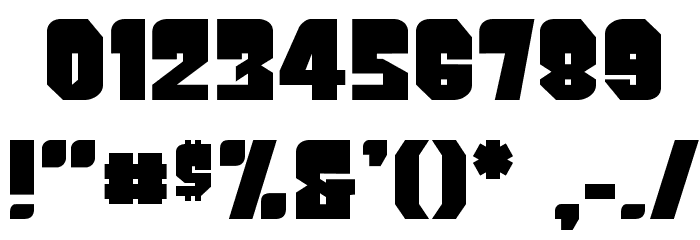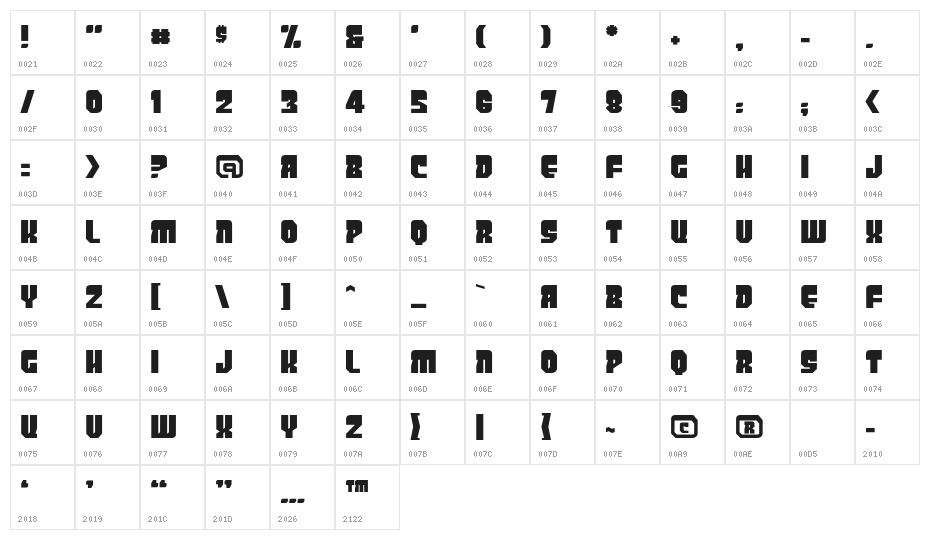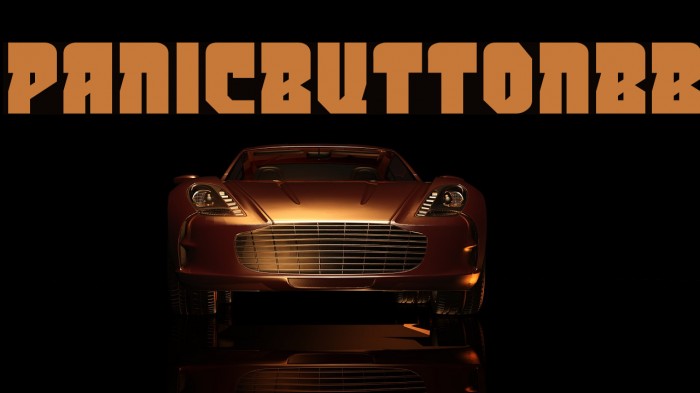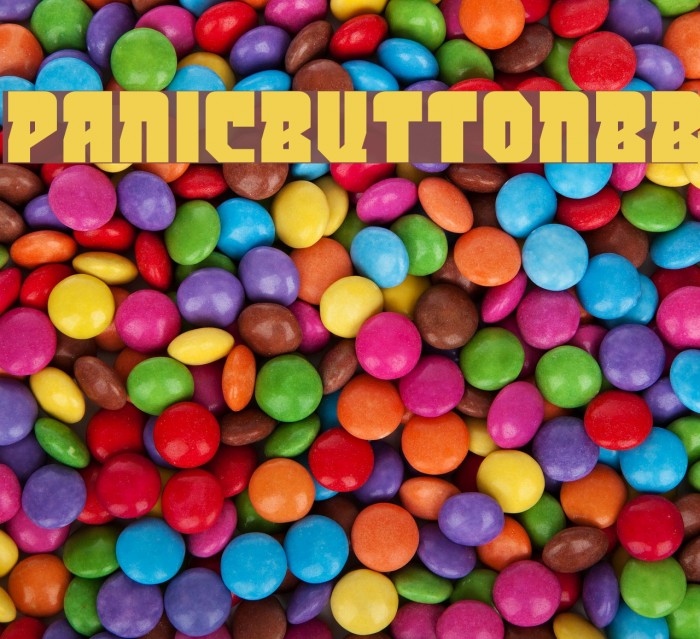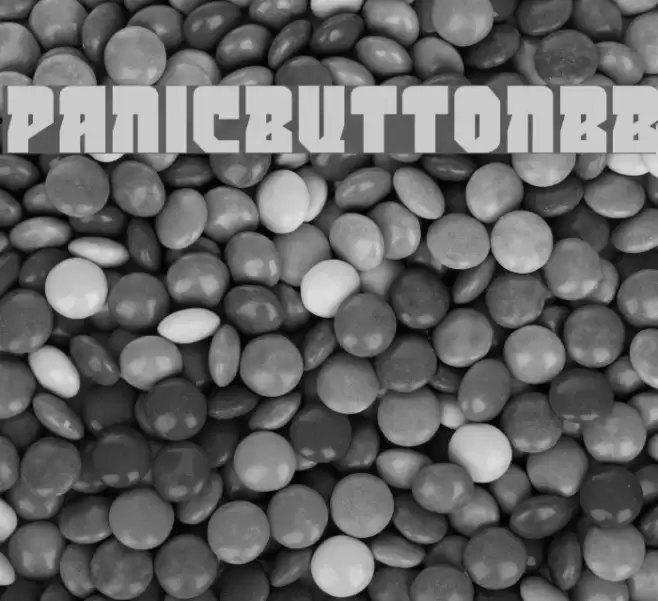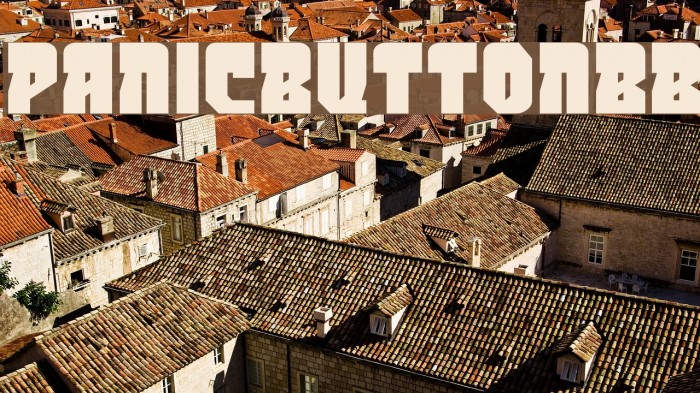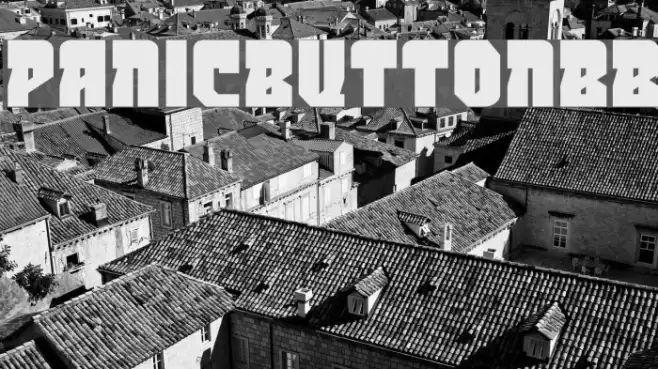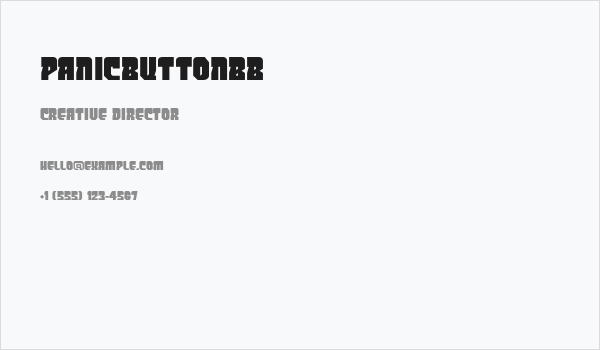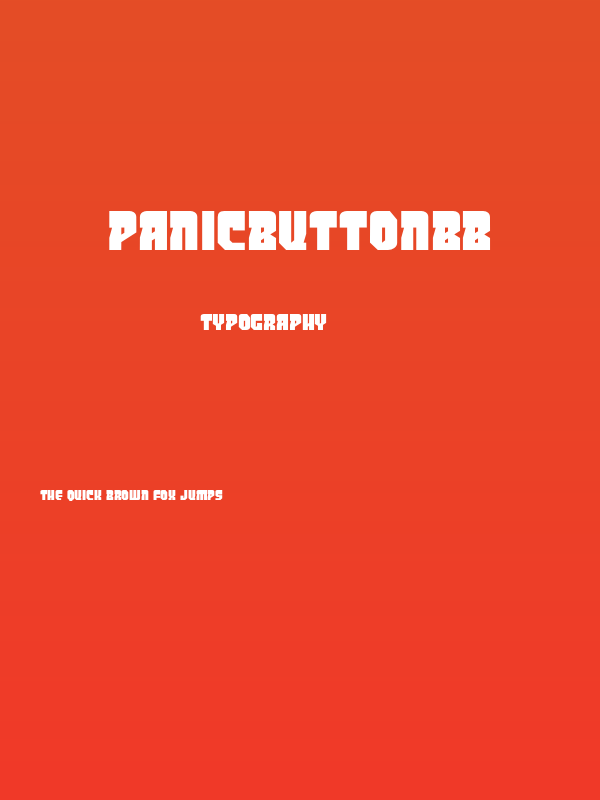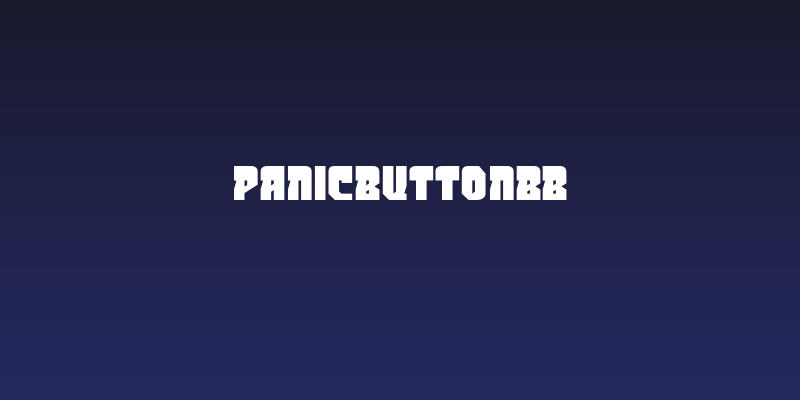
PanicButtonBB Font
PanicButtonBB Description
This font features a bold and geometric design with a strong presence. The characters are blocky and angular, giving it a futuristic and industrial feel. The uppercase and lowercase letters maintain a consistent style, with sharp edges and a uniform thickness throughout. The numbers and special characters are designed to match the boldness of the alphabet, ensuring a cohesive look across all text. This font is ideal for making a statement, with its eye-catching and assertive appearance.
| Proposed Projects | Ideal for posters, video game titles, branding for tech companies, or any project needing a strong, impactful typeface. |